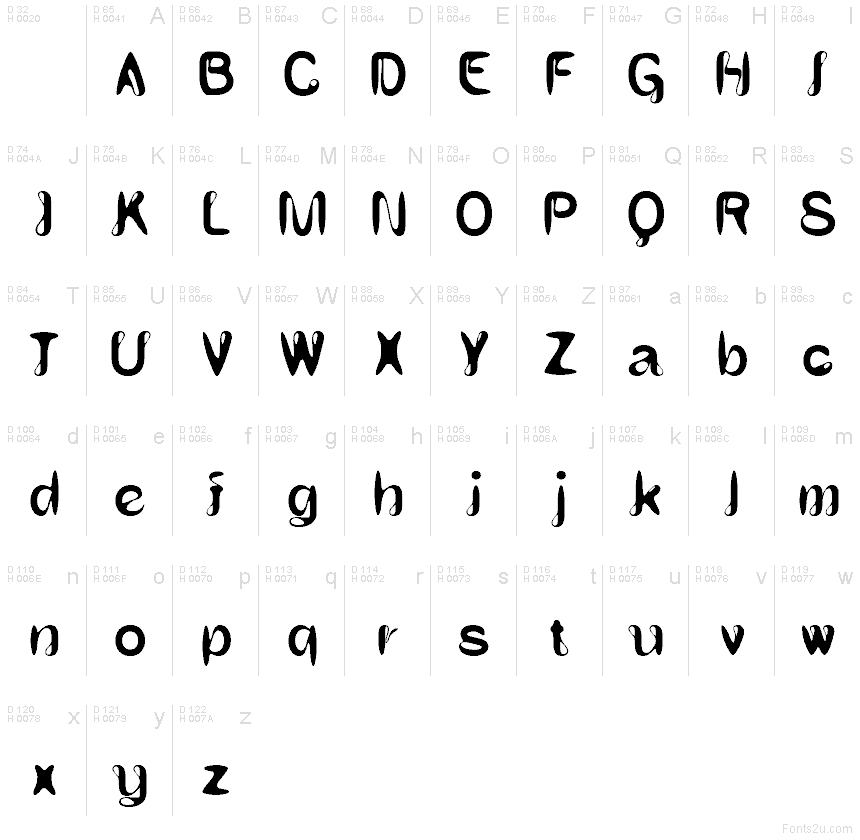
CSAmoraDrawn-Regular Demo
CS Amora font by Craft Supply Co. is an expressive font with contemporary flair. The artistic design features decorative elements for elegant and unique text forms that combine to make a stylish and attractive typeface. Each word will immediately draw viewers’ attention, which makes this free display font more than effective!
Logos, invitations, business cards, magazines: the list goes on for CS Amora’s use cases! Create stand-out prints or media designs that go above and beyond ordinary efforts by including such a powerful visual communication tool.